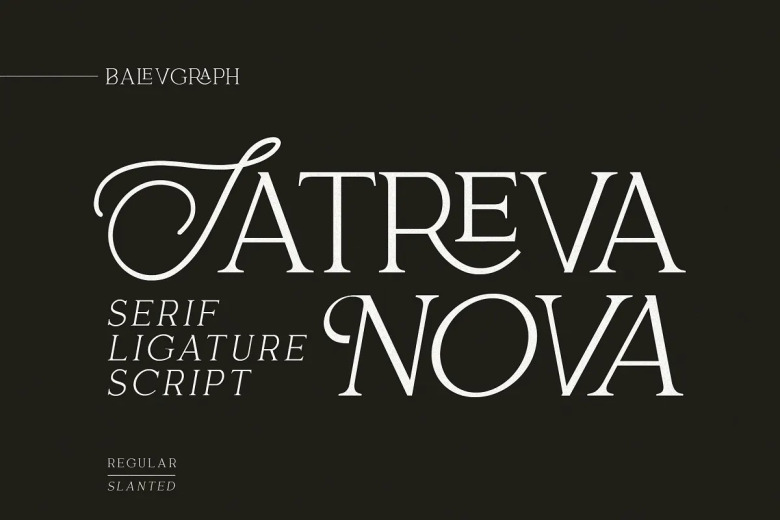
Satreva Nova Font
Satreva Nova is sophisticated, charming font duo with fashionable tone. This font is specifically designed for a female luxurious, upscale and elegant project. This modern chic design is perfect form them.
Satreva Nova Serif Font